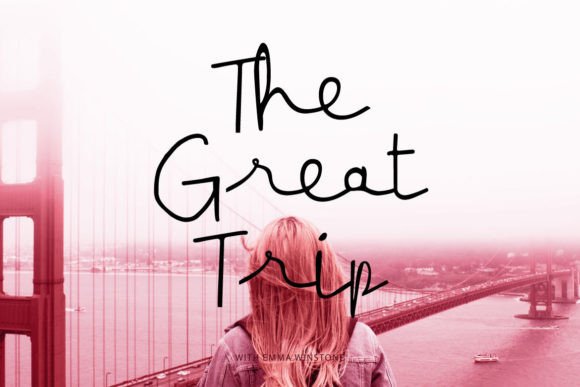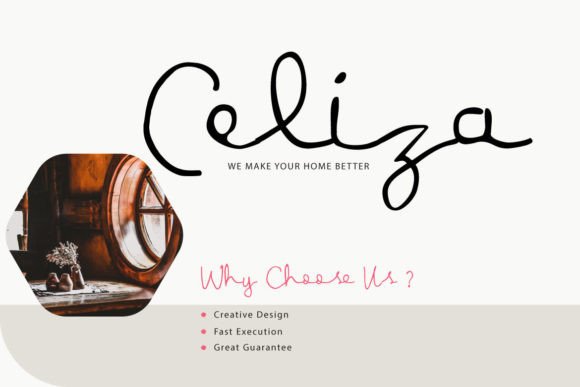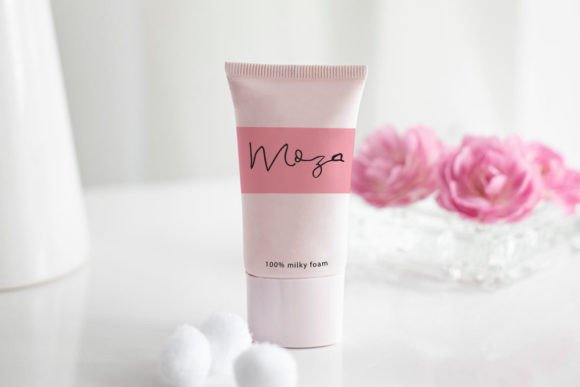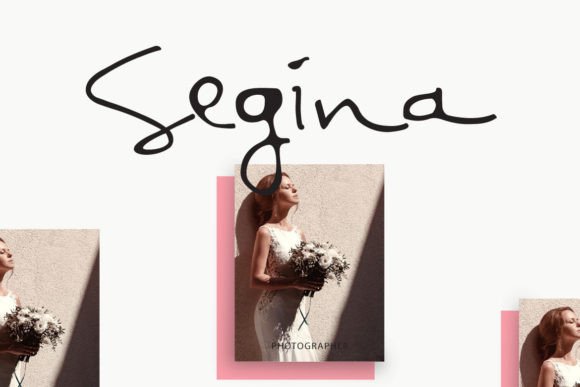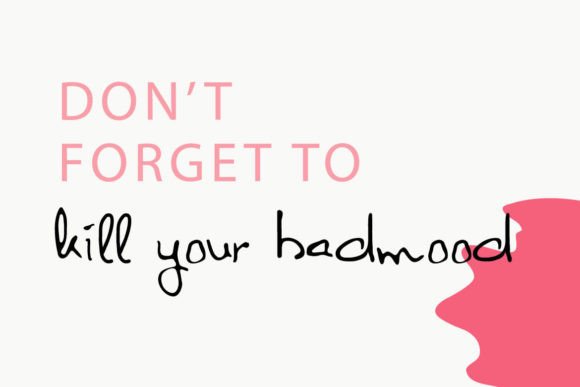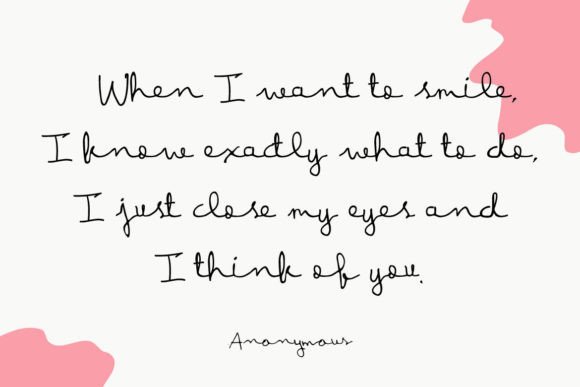
Introducing Berisik Font: A Unique Signature-Style Script Font
Are you tired of using the same old fonts for your designs? Look no further! Berisik Font is a game-changer for designers and crafters alike. This signature-style script font is a true gem, offering a wide range of styling options to make your work stand out. In this article, we’ll dive into the world of Berisik Font and explore its features, benefits, and uses.
What is Berisik Font?
Berisik is a signature-style script font that has been carefully crafted with many styling options in lowercase, uppercase, and numbers. This font is truly a unique signature font that will add a touch of elegance and sophistication to your designs. Whether you’re working on a logo, branding project, or social media graphics, Berisik Font is the perfect choice.
Key Features of Berisik Font
• Unique Signature Style: Berisik Font boasts a distinctive signature-style script that will set your designs apart from the rest.
• Multi-Styling Options: With many styling options in lowercase, uppercase, and numbers, you can experiment with different looks and feels to find the perfect fit for your project.
• Elegant and Sophisticated: Berisik Font exudes elegance and sophistication, making it perfect for high-end designs, luxury brands, and creative projects.
Benefits of Using Berisik Font
So, why choose Berisik Font for your next project? Here are just a few benefits of using this amazing font:
• Adds Visual Interest: Berisik Font’s unique signature style adds visual interest to your designs, making them more engaging and attention-grabbing.
• Versatile: With its wide range of styling options, Berisik Font can be used for a variety of projects, from logos and branding to social media graphics and more.
• Easy to Read: Despite its elegant and sophisticated style, Berisik Font is easy to read, making it perfect for body text and headlines.
Who Can Benefit from Berisik Font?
Berisik Font is perfect for a wide range of designers and crafters, including:
• Graphic Designers: Add a touch of elegance and sophistication to your designs with Berisik Font.
• Logotype Designers: Create stunning logos and branding materials with Berisik Font’s unique signature style.
• Social Media Managers: Elevate your social media graphics with Berisik Font’s versatile and eye-catching style.
• Crafters and Artists: Use Berisik Font to add a personal touch to your handmade projects, such as stationery, journals, and more.
In conclusion, Berisik Font is a unique and versatile signature-style script font that is perfect for designers and crafters looking to add a touch of elegance and sophistication to their work. With its wide range of styling options, ease of use, and eye-catching style, Berisik Font is sure to become a favorite in your font collection. So why wait? Download Berisik Font today and take your designs to the next level!